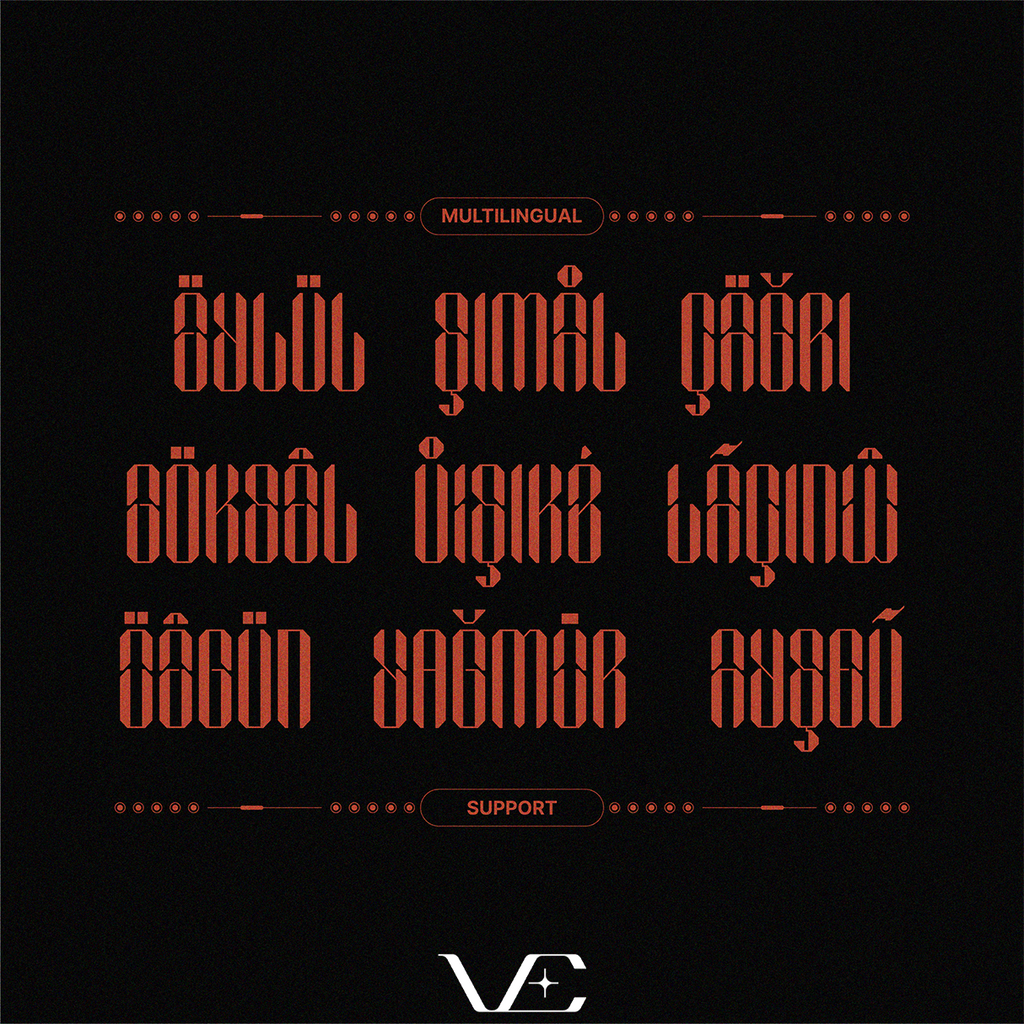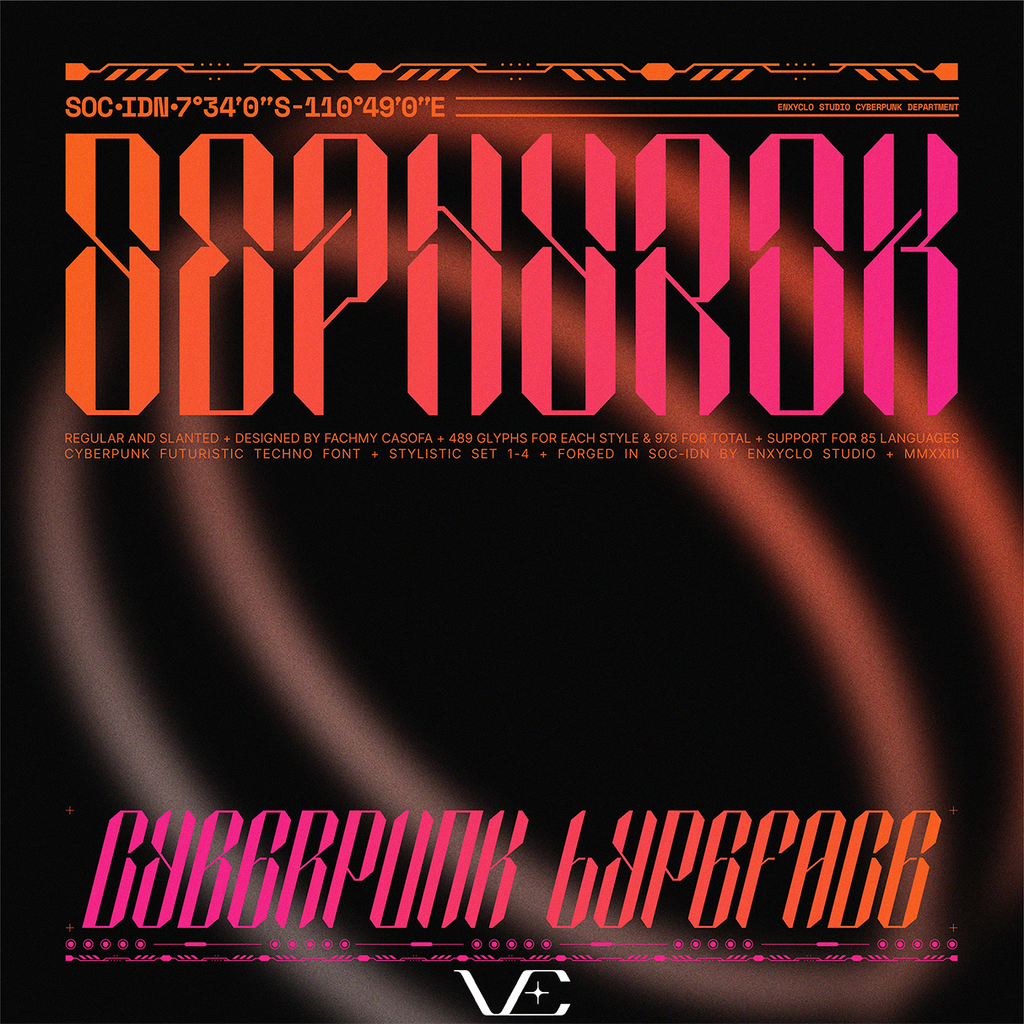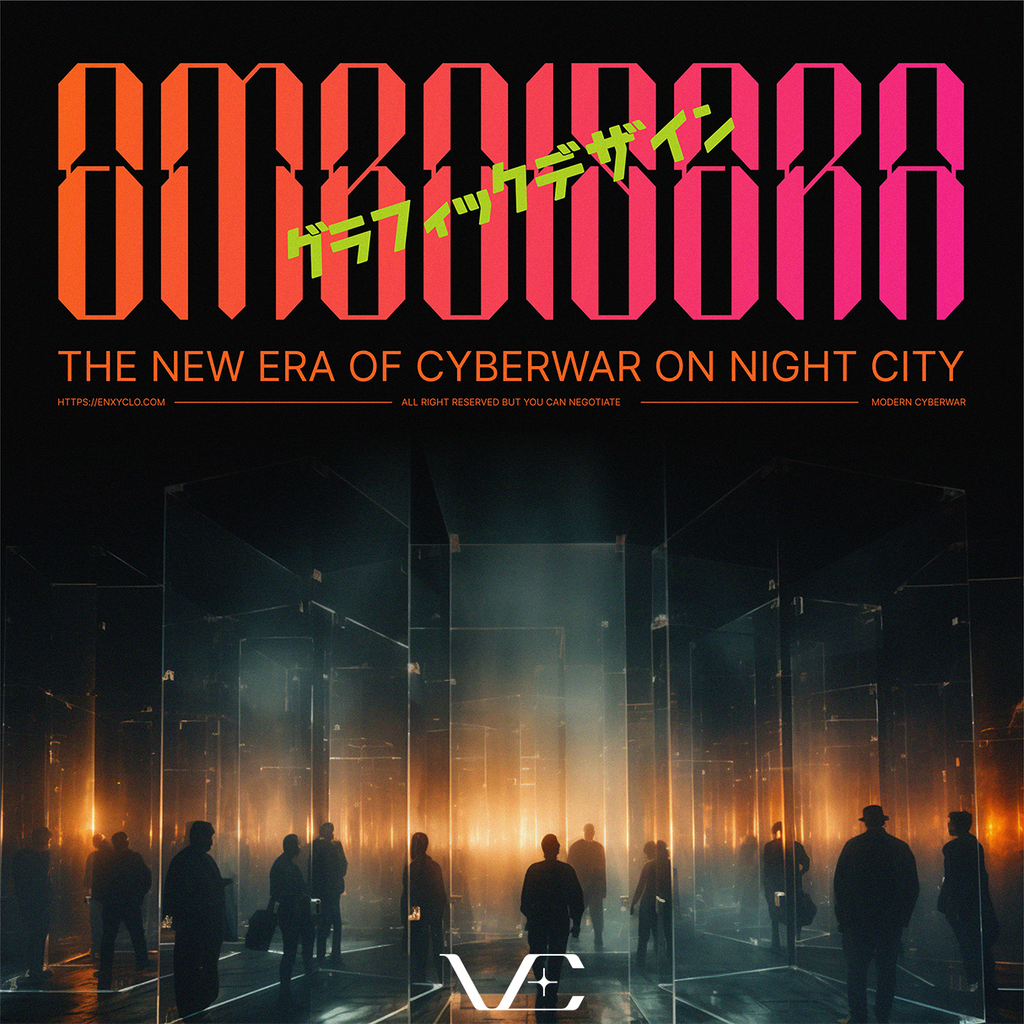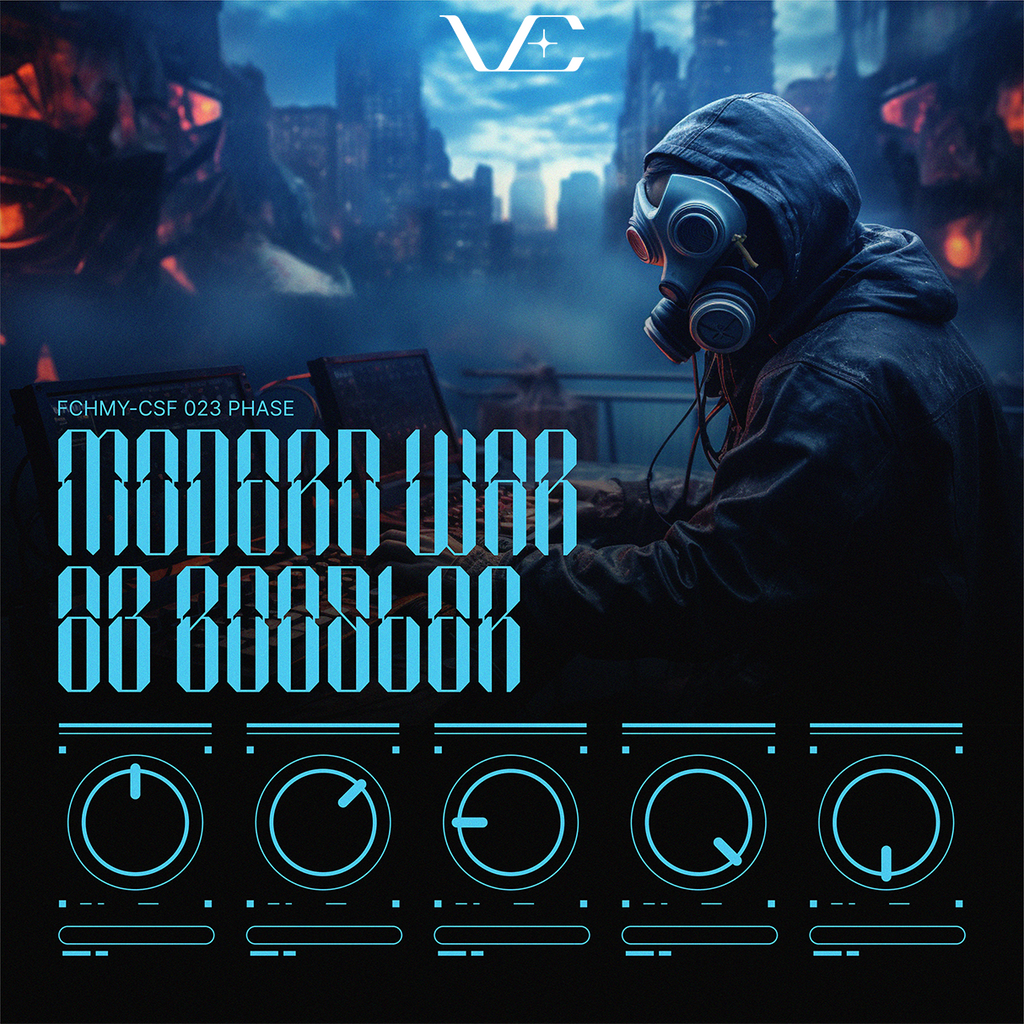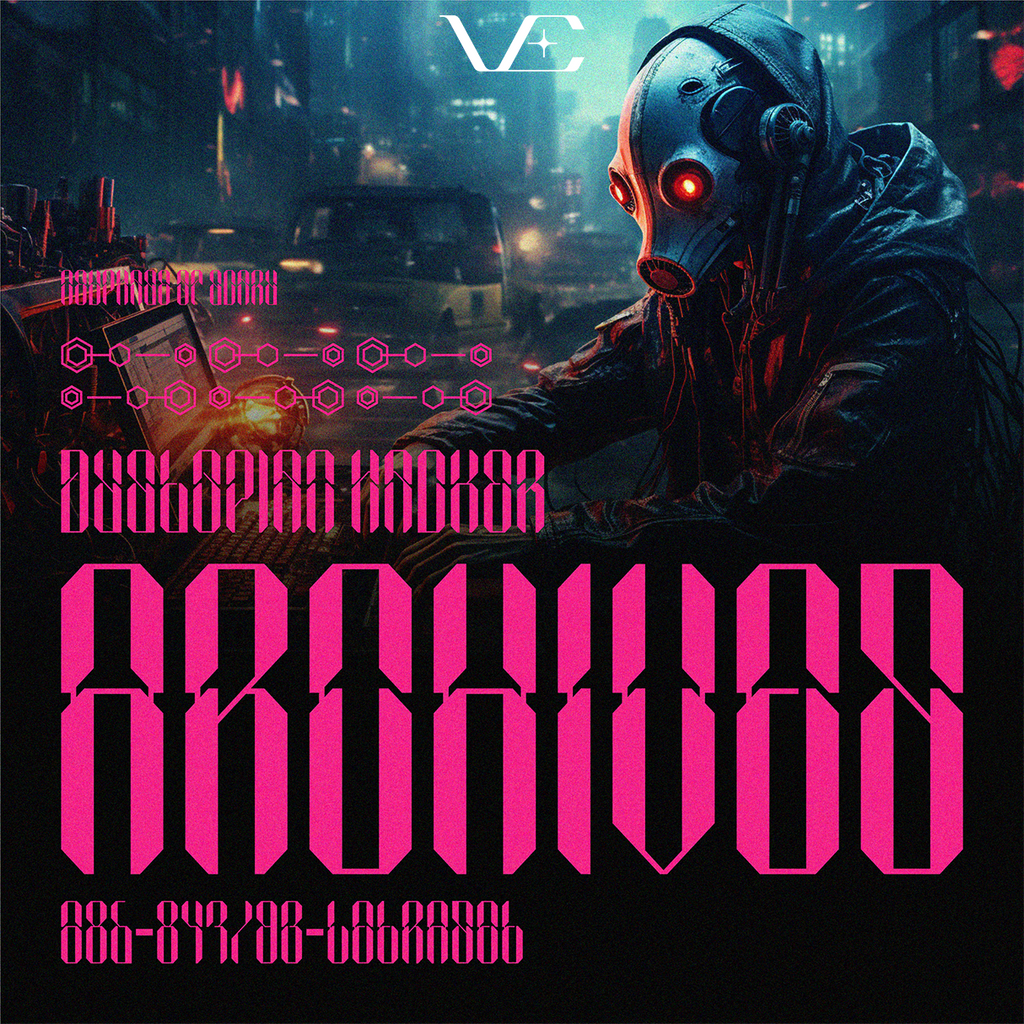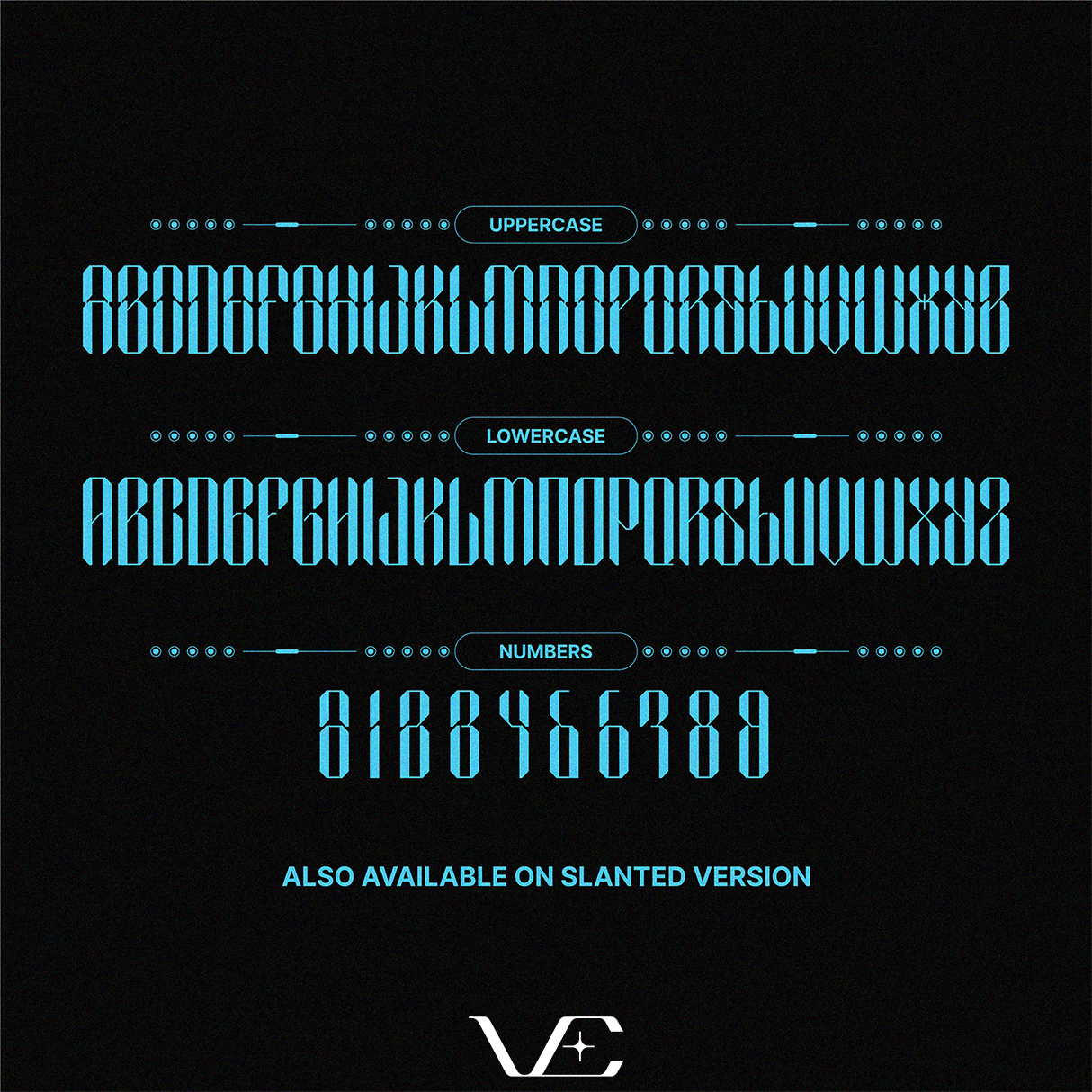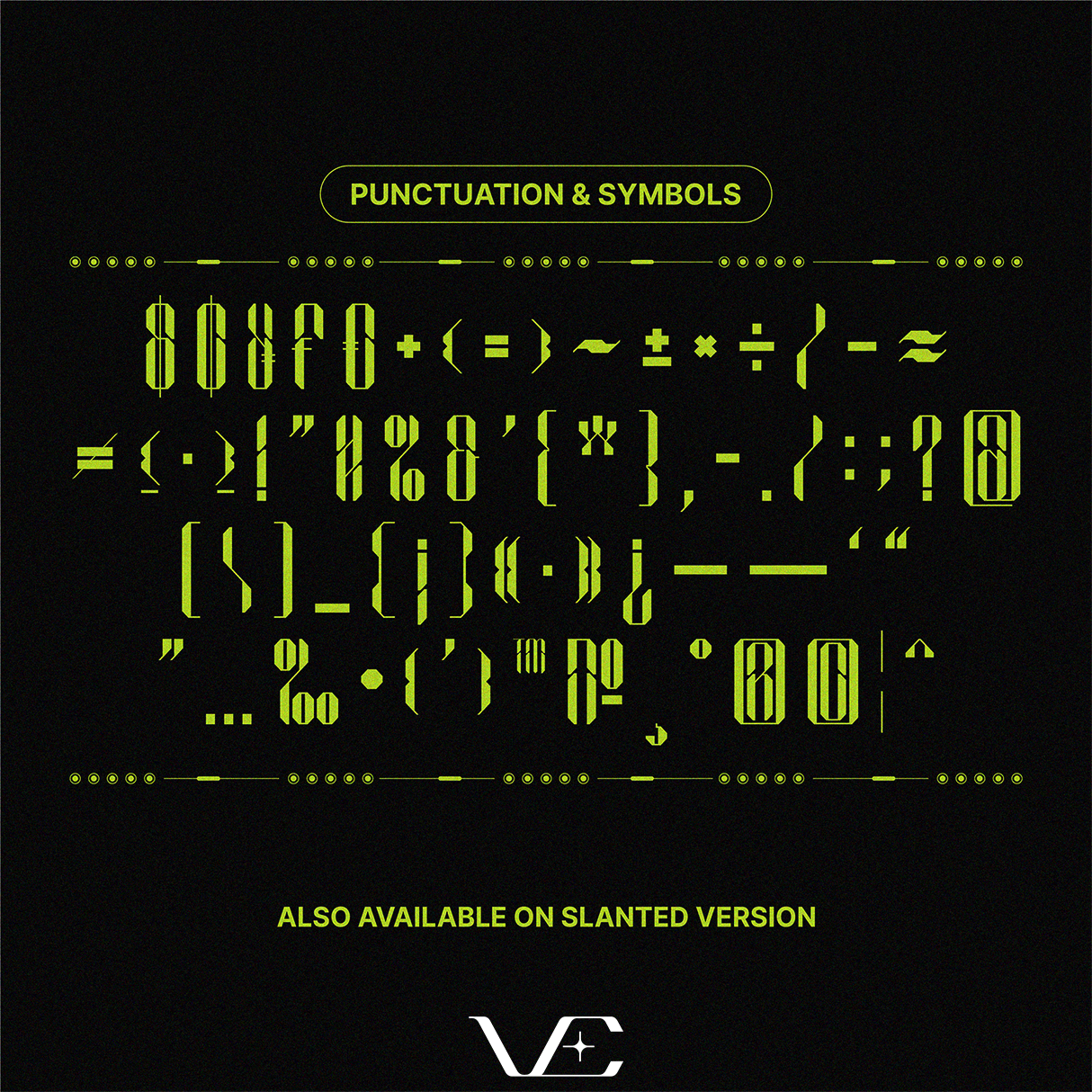
NCL SEPHYROK • Cyberpunk Typeface
NCL SEPHYROK is not your ordinary font; it’s a cyberpunk futuristic techno condensed font that takes your creativity to the next level. Its futuristic aesthetics bring a whole new dimension to your designs, making them stand out. Whether you’re working on a website, poster, logo, or any other project, this font adds that extra touch of innovation and sophistication.
Cyberpunk–a genre that started in science fiction and has left its indelible mark on various aspects of pop culture, including design. The textures of Cyberpunk are hard to ignore. Its intrinsic appeal lies in the paradoxical blend of the advanced and the old-fashioned, the bright and the brooding, the hopeful and the despairing. And one way this vibe gets communicated powerfully is through this font–the heroes of visual communication if you will.
Whether you’re a graphic designer working on a futuristic project, a film-maker creating titles for your next sci-fi epic, or simply a fan of Cyberpunk aesthetics, this font will serve as your guide, illuminating your path in the shadowy streets of this unique design language.
Using this beautiful futuristic font makes your project an attention-grabbing masterpiece. It can instantly captivate your audience and leave a lasting impression. It’s the perfect choice for those who dare to be different and want to break away from the ordinary. If you’re wondering how to utilize this font best, check out the previews. They’ll give you some incredible inspiration for incorporating this font into your designs. From sleek and modern website to eye-catching posters, the possibilities are endless.
Masterfully designed to become a true favorite, this font has the potential to bring each of your creative ideas to the highest level! It was purposely crafted to be used in large point sizes, although it doesn’t lose its magic in small point sizes. This font will be an incredible asset to your fonts’ library, as it has the potential to elevate any creation. With this beautiful font, absolutely you can make your project stand out from the rest. Let your imagination run wild as you envision the impact this great typeface can have on your project.